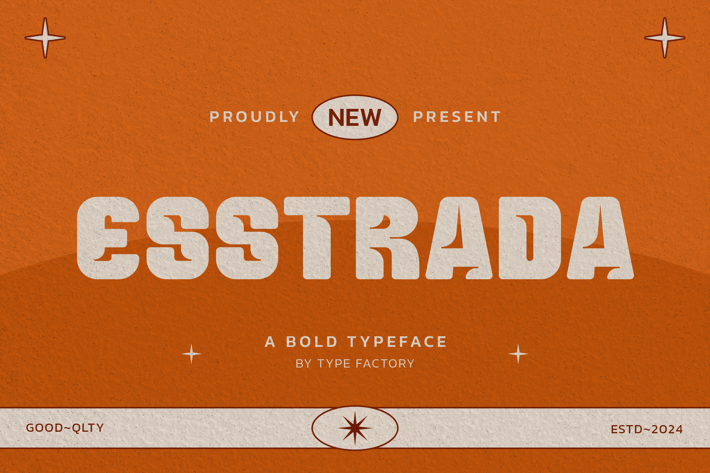
Esstrada - A Bold Typeface
Esstrada is a powerful and commanding bold typeface designed to make a strong impact. With its robust letterforms and clean, confident lines, Esstrada is perfect for headlines, posters, logos, and branding that need to grab attention. This typeface exudes authority and presence, making it an ideal choice for designs that require a bold, modern aesthetic. Whether used in print or digital media, Esstrada delivers a striking and memorable visual experience that stands out in any context.